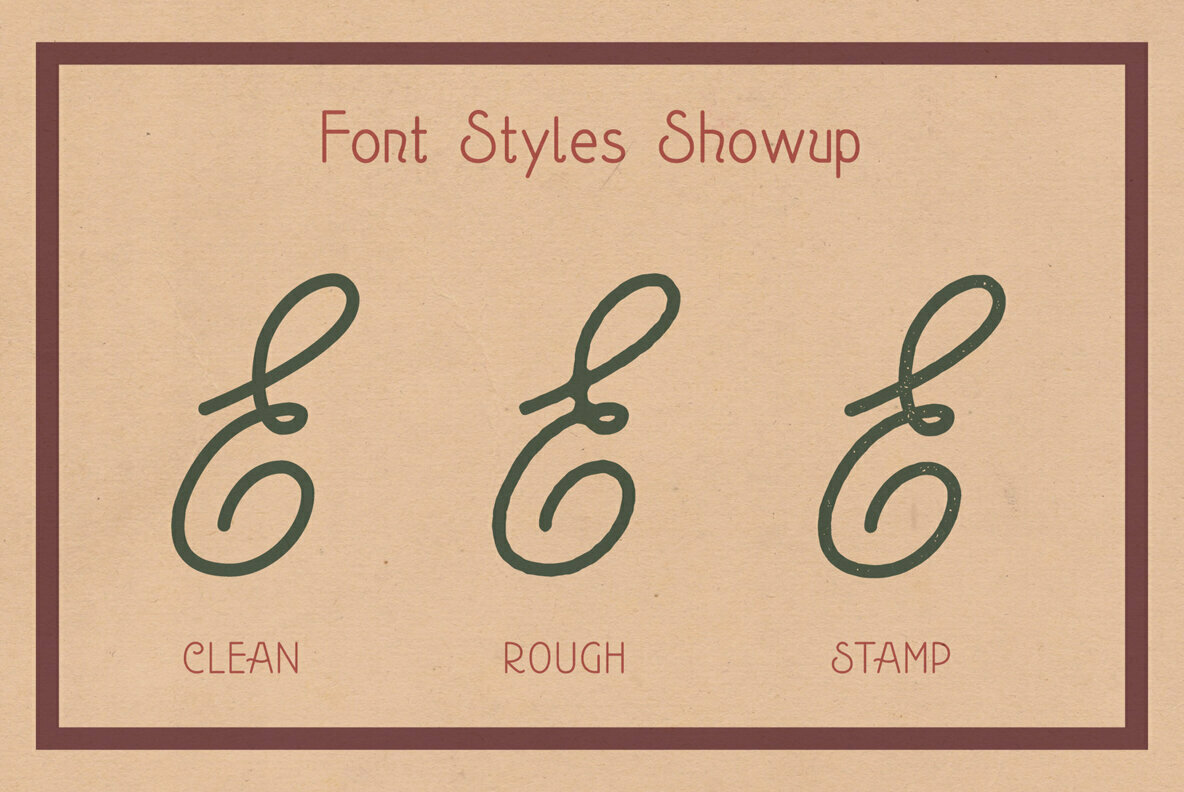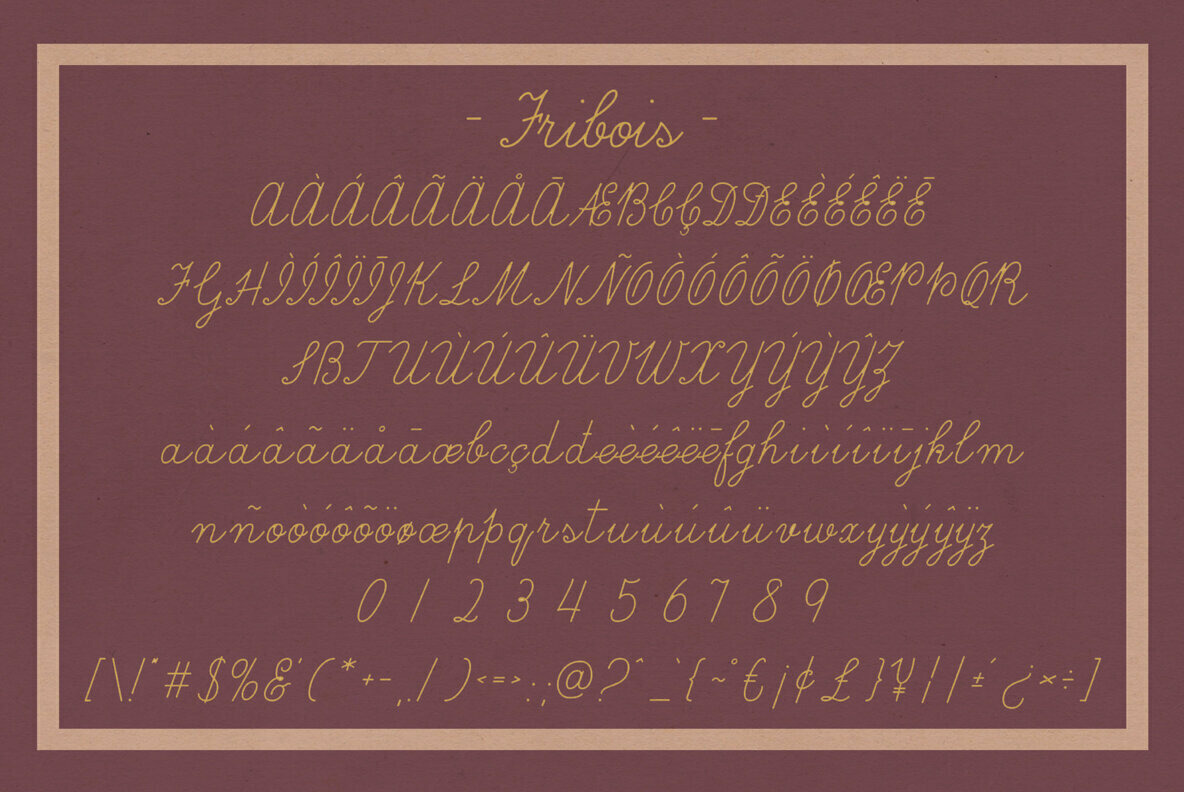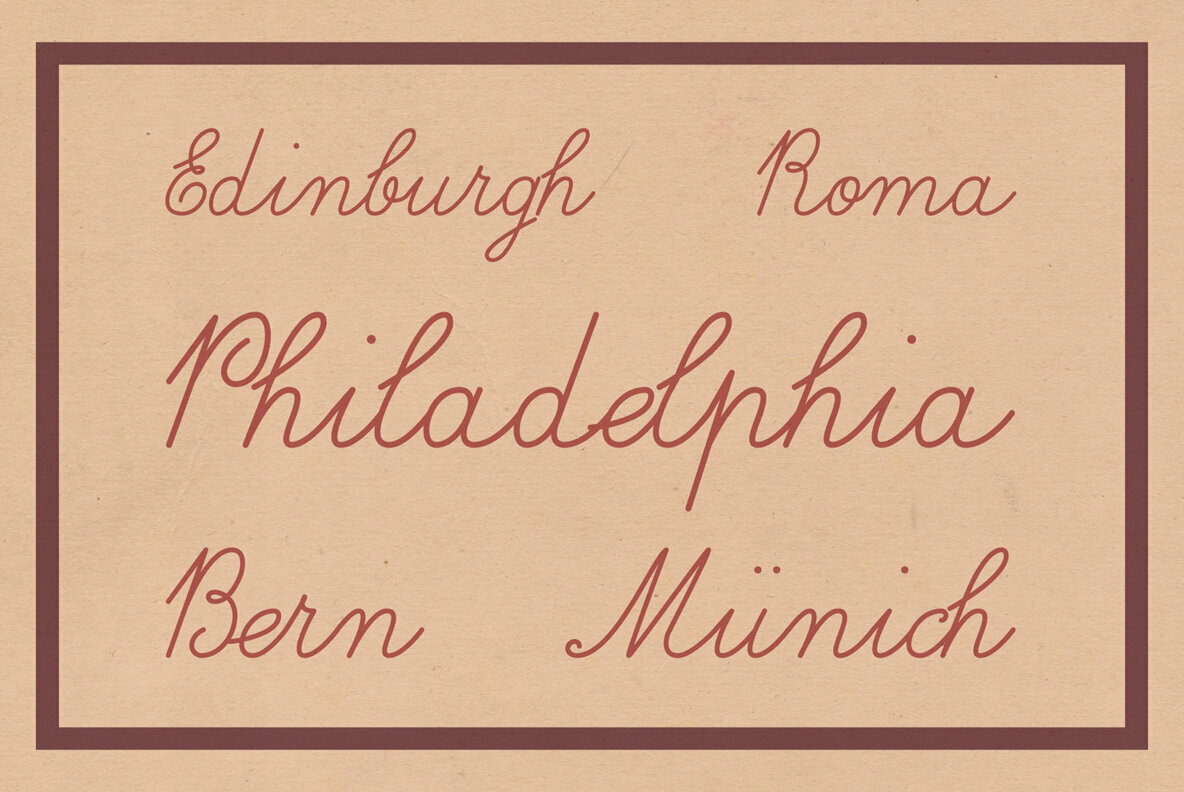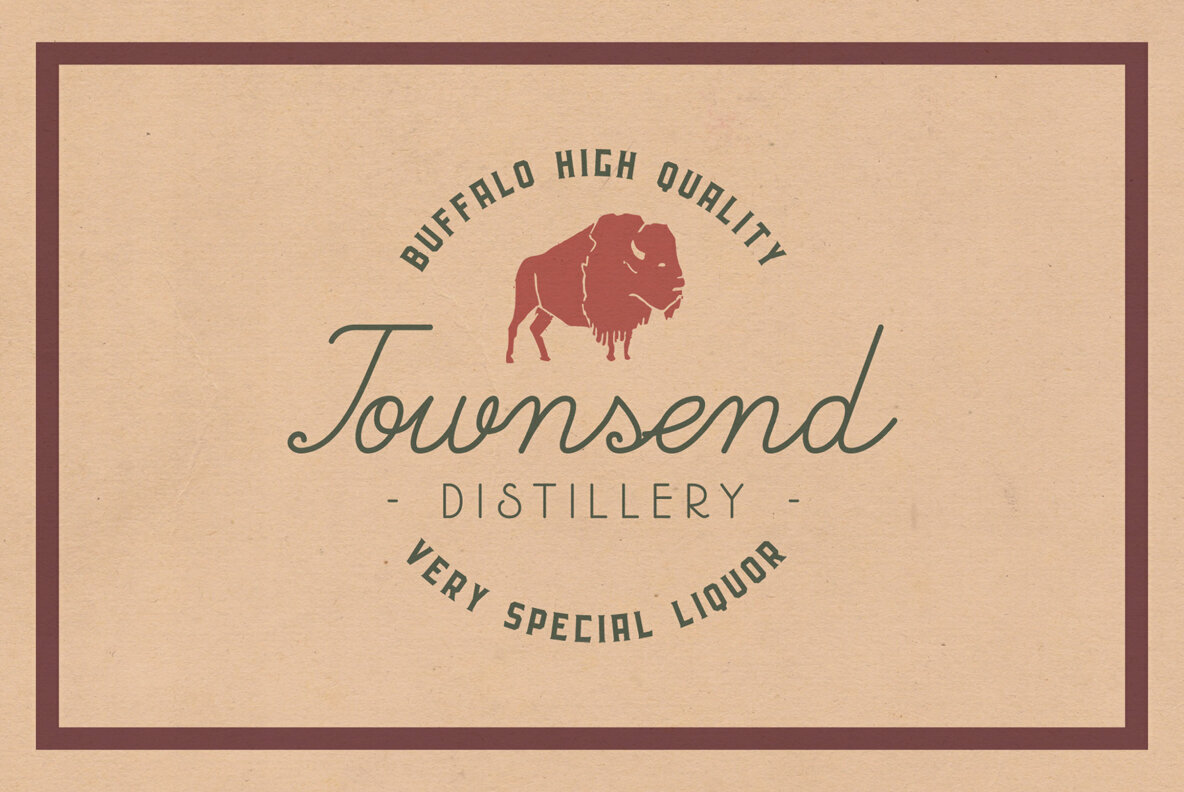
Fribois Script Font
Fribois Clean
Fribois Rough
Fribois Stamp
Embrace a nostalgic touch with Fribois Script, a monoline font inspired by traditional penmanship. This font captures the timeless elegance of hand-crafted strokes, skillfully translated into a digital format. Its versatile nature makes Fribois Script ideal for text, headers, logos, and branding projects, bringing a sense of sophistication and personal touch to any design.Fribois Script: Monoline Elegance with Classic Flair